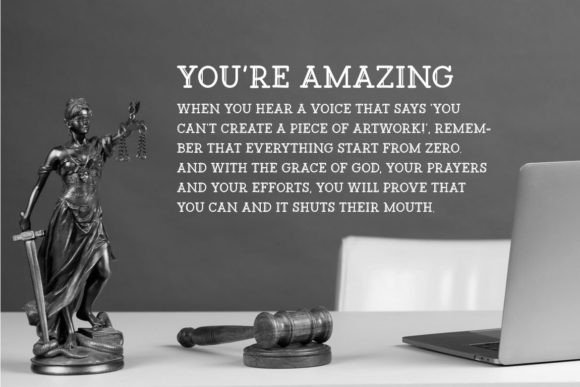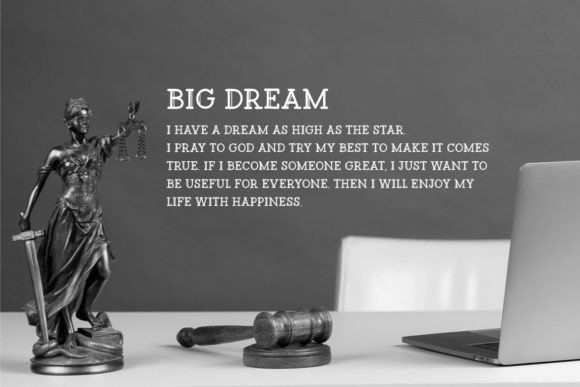
Introduction to Big Lawyer Font
Have you ever been in a creative rut, staring at a blank page or screen, searching for the perfect font to bring your project to life? I know I have. But then, it happened – a font so bold, so eye-catching, that it immediately elevated my design to the next level. Enter the Big Lawyer Font, a game-changing decorative display font that’s perfect for making a statement in any creative project.
What sets Big Lawyer apart is its versatility – from comic books and posters to school projects and advertisements, this font is a design resource that can be used in countless ways. Plus, with its high-quality design and transparent background, it’s a breeze to use and customize. And the best part? It’s free to download, making it an invaluable addition to any designer’s toolkit.
Whether you’re a seasoned pro or just starting out, the Big Lawyer Font is a valuable asset that can take your designs to new heights. So why wait? Dive in and explore the world of possibilities with this incredible font.
Key Features of Big Lawyer Font
- High-quality design: Big Lawyer Font is designed with precision and care to provide a unique and professional look for your creative project.
- Transparent background: This font allows for a clean and minimalist design, perfect for backgrounds or overlays in your design resource.
- Unique characteristics: The distinctive lawyer-inspired design elements make this font stand out from the crowd and add a touch of sophistication to any creative project.
- Perfect for creative projects: Big Lawyer Font is ideal for use in law firm logos, lawyer websites, and other creative projects that require a professional and authoritative look.
Honest Review: Big Lawyer Font
As a designer, I’ve worked with my fair share of fonts, but Big Lawyer Font has left a lasting impression on me. I recently stumbled upon this design resource, and I’m excited to share my thoughts on it.
What works well: ✨ Big Lawyer Font is incredibly versatile and easy to use. It comes in a range of styles, from formal to playful, making it perfect for a variety of creative projects. The font is also available for free download, which is a major plus in my book.
- High quality design
- Easy to use and customize
However, there are some limitations: ⚠️ While Big Lawyer Font is a great addition to any design toolkit, it’s not without its flaws. The font can be a bit overbearing in certain contexts, and some users may find it too formal for more casual projects.
Overall, I’m impressed with Big Lawyer Font. It’s a high-quality design resource that’s perfect for creative projects that require a touch of sophistication. If you’re looking for a font that’s easy to use and customize, Big Lawyer Font is definitely worth checking out.
Big Lawyer Font is a high-quality design resource that can elevate your creative project. With its bold and professional look, it’s perfect for legal documents, business proposals, and presentations.
Tips for Getting the Most Out of Big Lawyer Font
To get the most out of Big Lawyer Font, use it with a transparent background to create a professional look. You can also pair it with other fonts to create a unique design style.
Big Lawyer Font is commonly used in legal documents, business proposals, and presentations. It’s also perfect for creating a professional-looking logo, business card, or brochure.
Q: Can I use Big Lawyer Font with a transparent background?
Yes, Big Lawyer Font supports transparent backgrounds, allowing you to easily integrate it into your design projects that require a see-through effect.
Q: Is Big Lawyer Font suitable for high-quality creative projects?
Big Lawyer Font is designed to be highly legible and visually appealing, making it an excellent choice for high-quality creative projects, such as branding, advertising, and editorial design.